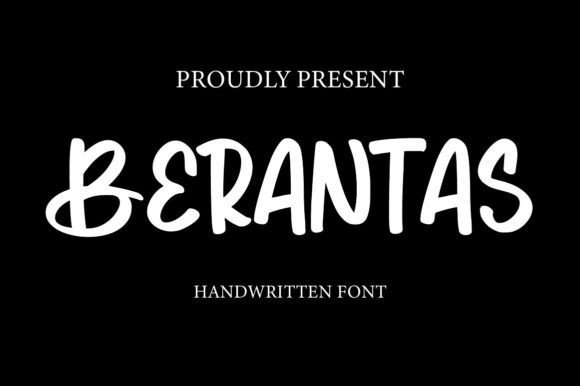
Discover the Magic of Berantas Font Have you ever stared at a blank page, feeling stuck and uninspired, only to have a spark of creativity ignite when you pick up a pen or pencil? That’s exactly what happens when you work with the right tools, like the Berantas Font. This charming handwritten font is designed…